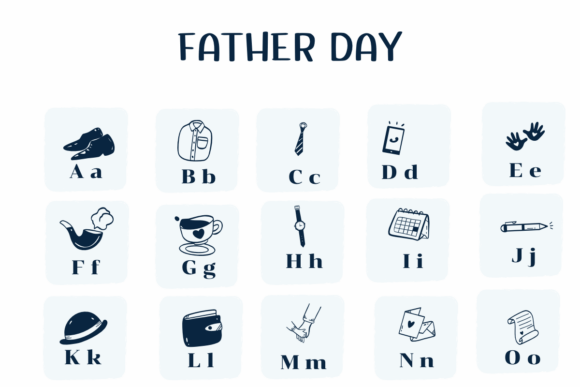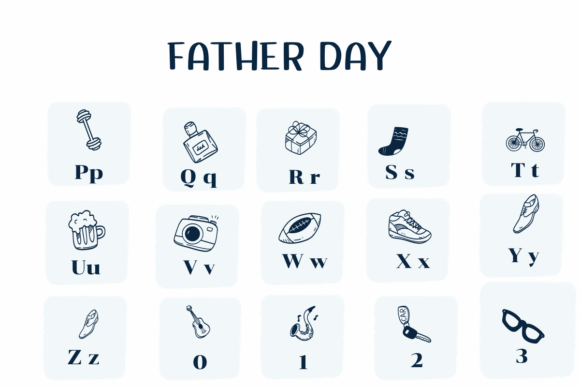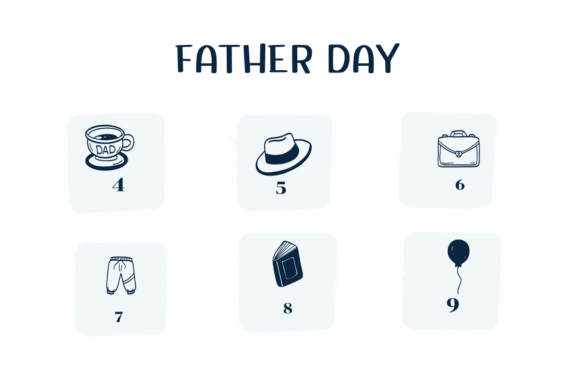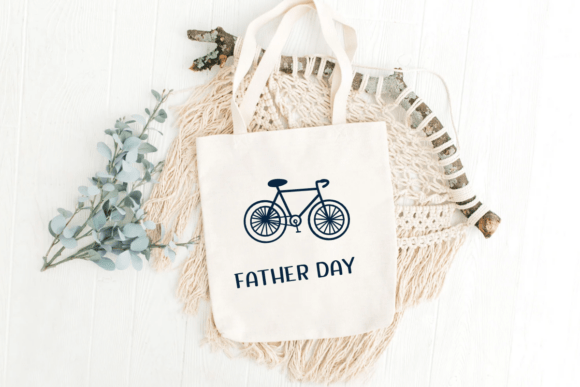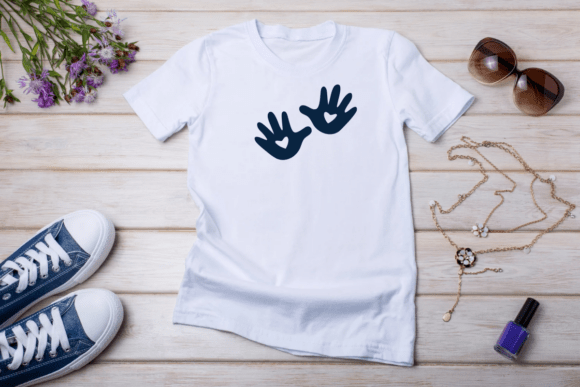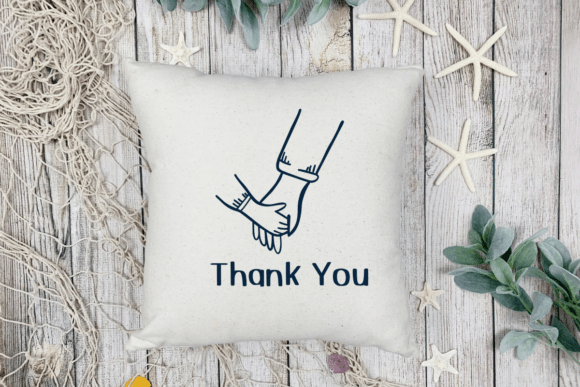
Introducing Father Day Font: The Ultimate Celebration of Fatherhood
Are you looking for a unique and creative way to express your love and appreciation for dad? Look no further than Father Day Font, a thematic dingbat font that is packed with an array of father-themed illustrations. From hats and pipes to watches and ties, this font offers a wide range of versatile graphics that are perfect for greeting cards, Father’s Day gifts, and masculine designs.
A Vintage Vibe with a Modern Twist
Father Day Font is designed to evoke a sense of nostalgia and tradition, with a vintage vibe that is reminiscent of classic illustrations from the past. However, this font is not just a relic of the past – it’s been carefully crafted to meet the needs of modern designers and crafters who want to create unique and eye-catching projects. Whether you’re creating a handmade card, a customized gift, or a professional design, Father Day Font is the perfect choice.
A Wide Range of Father-Themed Illustrations
One of the standout features of Father Day Font is its extensive collection of father-themed illustrations. This font includes a wide range of graphics, such as:
- Hats and caps, perfect for creating customized baseball caps or party hats
- Pipes and cigars, ideal for creating sophisticated and masculine designs
- Watches and clocks, great for creating projects that celebrate dad’s sense of time
- Ties and bow ties, perfect for creating stylish and elegant designs
Father Day Font is the perfect choice for designers and crafters who want to create unique and eye-catching projects. This font is ideal for:
- Greeting cards: Create customized Father’s Day cards that will make dad feel special
- Gift tags: Add a personal touch to gifts with customized tags featuring Father Day Font
- Social media graphics: Create eye-catching social media graphics that celebrate fatherhood
- Customized gifts: Create one-of-a-kind gifts, such as mugs, t-shirts, and more
Why Choose Father Day Font?
So why choose Father Day Font over other fonts and graphics? Here are just a few reasons:
- Unique and exclusive: Father Day Font is a one-of-a-kind font that will make your projects stand out
- Versatile: This font can be used for a wide range of projects, from greeting cards to customized gifts
- High-quality graphics: The graphics in Father Day Font are high-resolution and perfect for printing or digital use
Get Ready to Celebrate Dad in Style!
Tips and Inspiration for Using Father Day Font
Still looking for inspiration or ideas for using Father Day Font? Here are a few tips to get you started:
- Combine Father Day Font with other fonts and graphics to create a unique and eye-catching design
- Use Father Day Font to create a customized gift basket or party favor
Father Day Font is the ultimate celebration of fatherhood, with a wide range of father-themed illustrations and a vintage vibe that’s perfect for greeting cards, gifts, and masculine designs. Whether you’re a designer, crafter, or simply someone who wants to show their appreciation for dad, this font is the perfect choice. So why wait? Download Father Day Font today and start creating unique and eye-catching projects that celebrate the special men in your life!